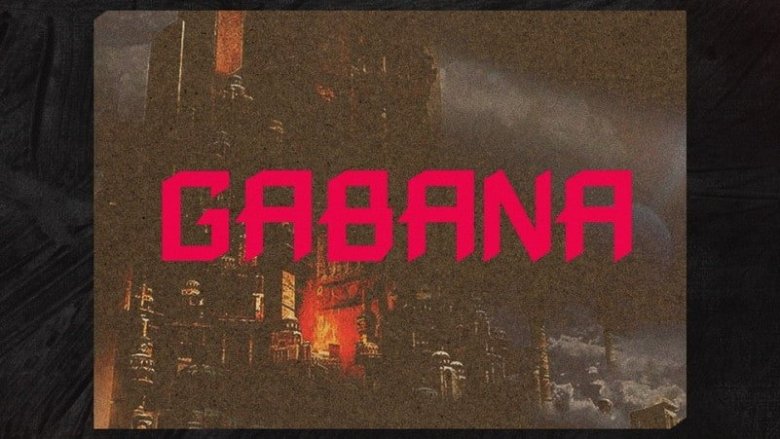
Gabana Display Font Family
Gabana Display Font Family is an incredibly Unique and Interesting Display Font that is absolutely great for your next creative project. A free primarily a display typeface referencing the typography from early 80s with characteristic of thick bold letterforms and clean cuts. The word Gabana (of African origin) means ‘a child with courage and determination.